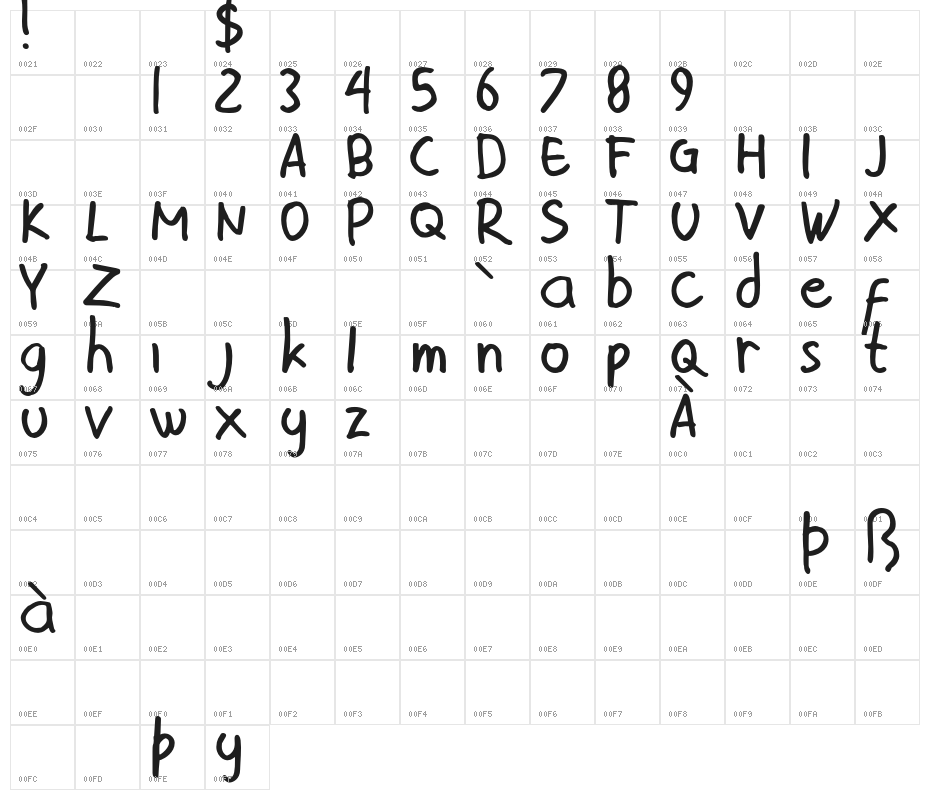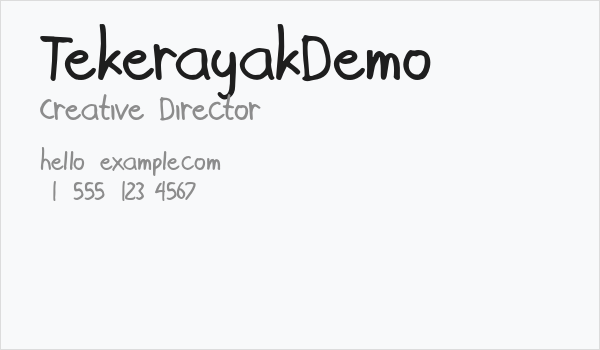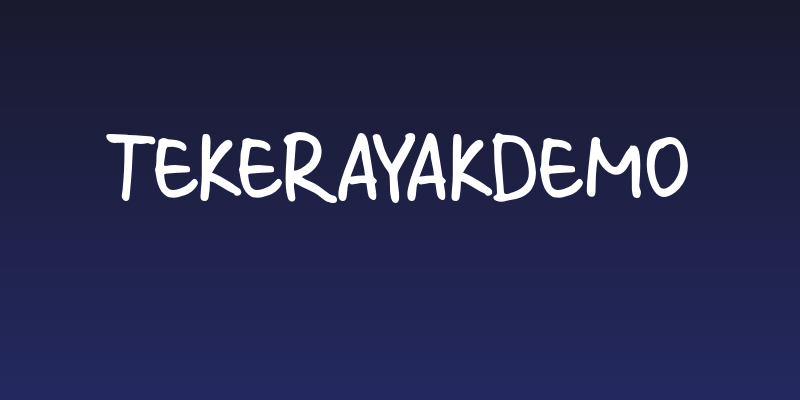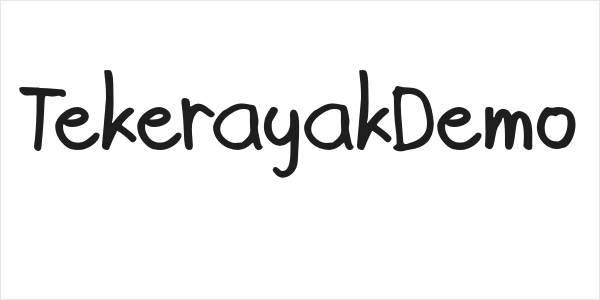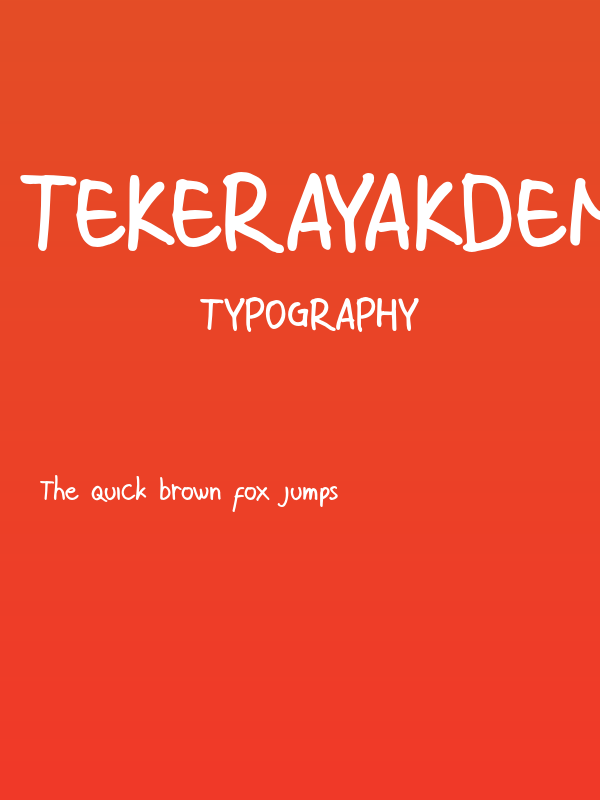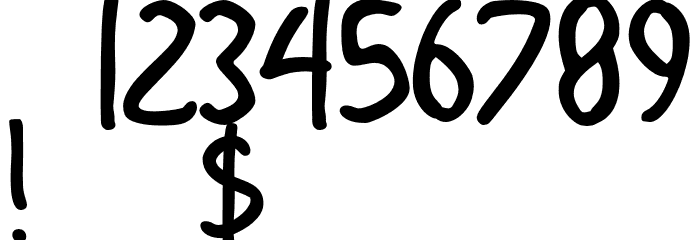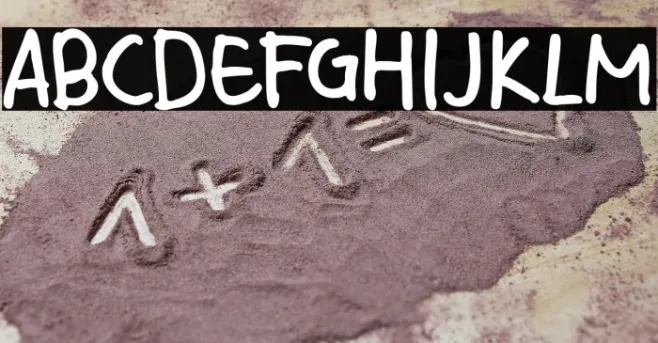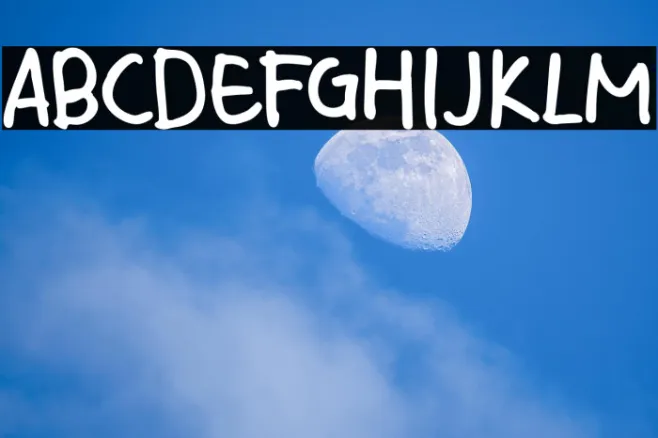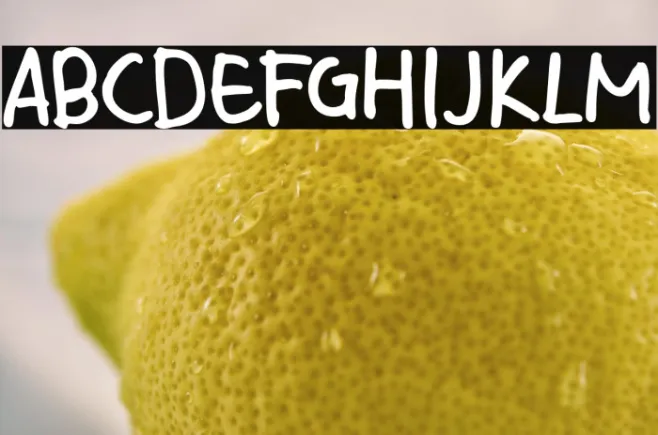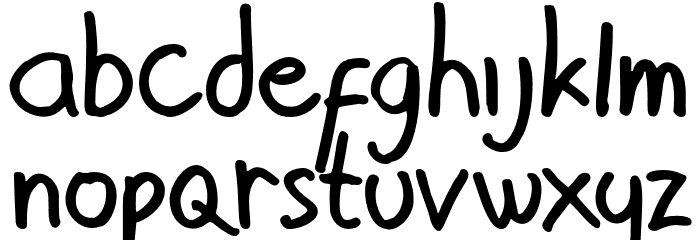
TekerayakDemo Font
TekerayakDemo Description
This font features a playful and casual handwritten style, characterized by its rounded and slightly irregular letterforms. The uppercase and lowercase letters maintain a consistent flow, giving it an approachable and friendly appearance. The numbers and special characters are designed to match the overall aesthetic, with smooth curves and a uniform stroke width. This font's informal nature makes it suitable for creative and lighthearted projects, where a personal touch is desired. The spacing between characters is balanced, ensuring readability while maintaining its unique style.
| Proposed Projects | Ideal for greeting cards, children's books, casual branding, and social media graphics. |